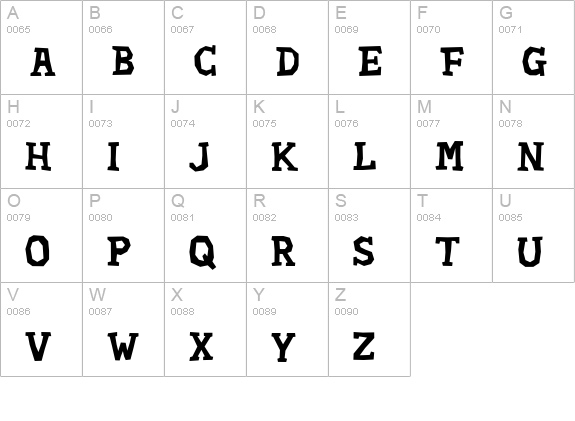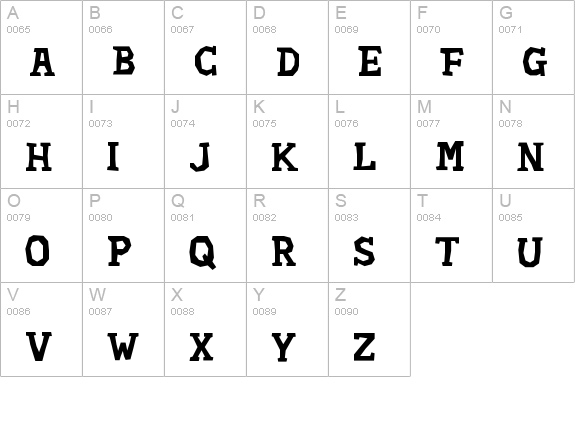
Hard Compound Font Details
Hard Compound font is a bold and striking typeface that exudes strength and power. It is the perfect choice for projects that require a tough and rugged aesthetic. With its sharp corners and bold lines, this font makes a bold statement and demands attention. The Hard Compound font is not only visually impressive, but it also offers great versatility. It can be used for various design purposes such as headlines, logos, posters, and signage. Its strong presence and unique character make it stand out from the crowd, leaving a lasting impression on the viewer. One of the best things about Hard Compound font is that it is freely available to download at FontsMarket.com. This means that you can easily access and use this font for your personal or commercial projects without any cost. FontsMarket.com is a trusted source for high-quality fonts, and they offer a wide range of options to suit every design need. So, if you are looking for a font that combines strength, boldness, and versatility, look no further than Hard Compound font. Download it today from FontsMarket.com and unleash its power in your designs.